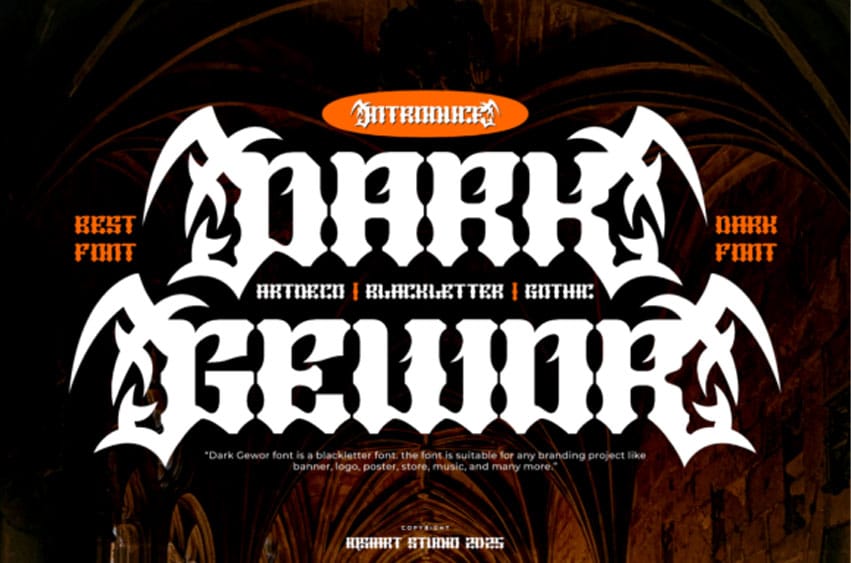
Dark Gewor Font is a razor-sharp blackletter font that commands attention with its gothic drama and bold art-deco-inspired structure. Designed for the daring, it combines medieval edge with a modern twist, making it perfect for branding, band logos, extreme sports, gaming posters, or any project that needs an intense, rebellious spirit.
Its spiked flourishes and dense composition make every word feel like a powerful statement.